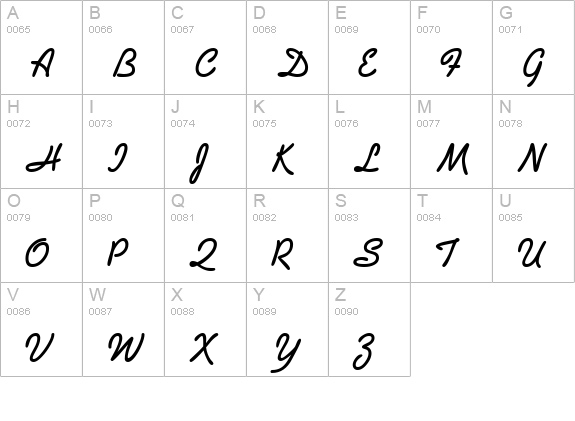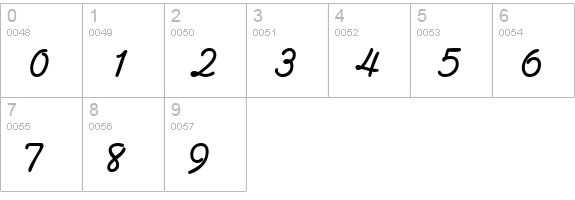
AbrazoScriptSSK Bold Font Details
AbrazoScriptSSK Bold is a strong, high-contrast variant in the AbrazoScriptSSK typeface family \xE2\x80\x94 well suited to headlines, attention-grabbing titles, and strong calls-to-action.
AbrazoScriptSSK Bold font is a striking and elegant typeface that exudes sophistication and timeless charm. With its bold strokes and graceful curves, this font is perfect for adding a touch of luxury and refinement to your designs. Whether you're working on invitations, branding materials, or any other project that requires a touch of class, AbrazoScriptSSK Bold is sure to make a lasting impression. What's even better is that this stunning font is available for free download at FontsMarket.com. Simply visit the website and start using this beautiful typeface in your projects today. Don't miss out on the opportunity to elevate your designs with the exquisite AbrazoScriptSSK Bold font.